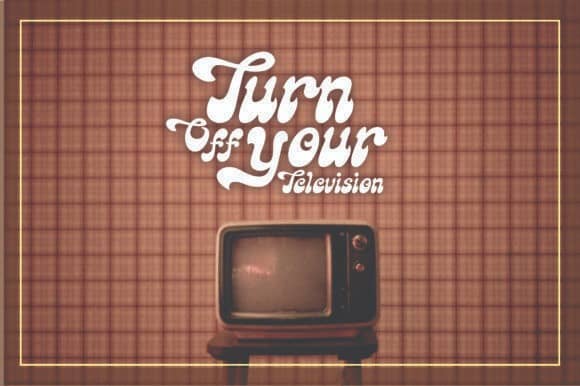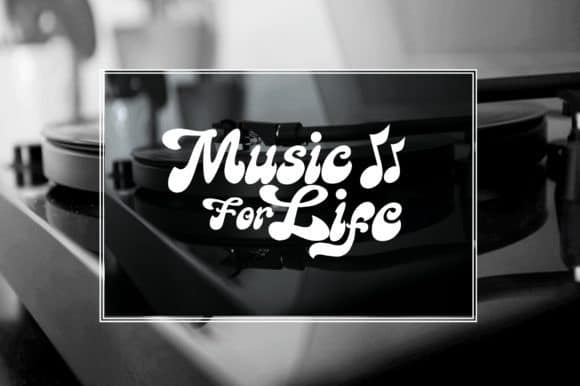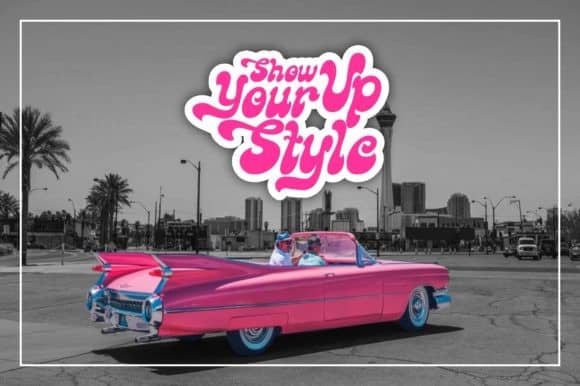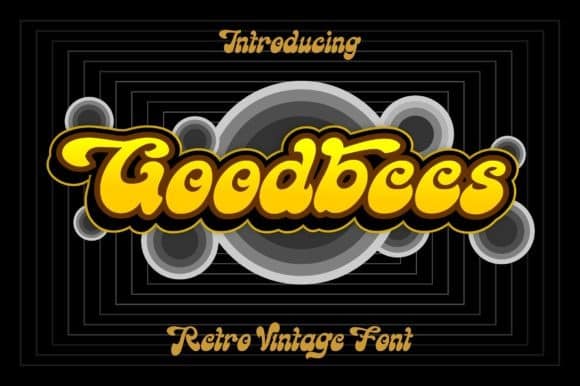
Goodbees Display Font
Goodbees Display Font inspired from retro style 70’s and perfect for logos, handwritten quotes, product packaging, header, poster, merchandise, social media & greeting cards. Made from font designer named ZetDesign. It’s a chunky lettered display font and delivers an incredible vintage aesthetic. Use this font to add that special retro touch to any design idea you can think of!